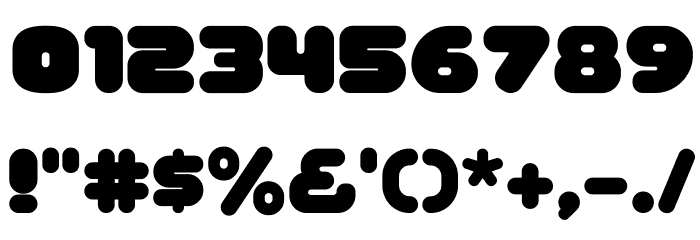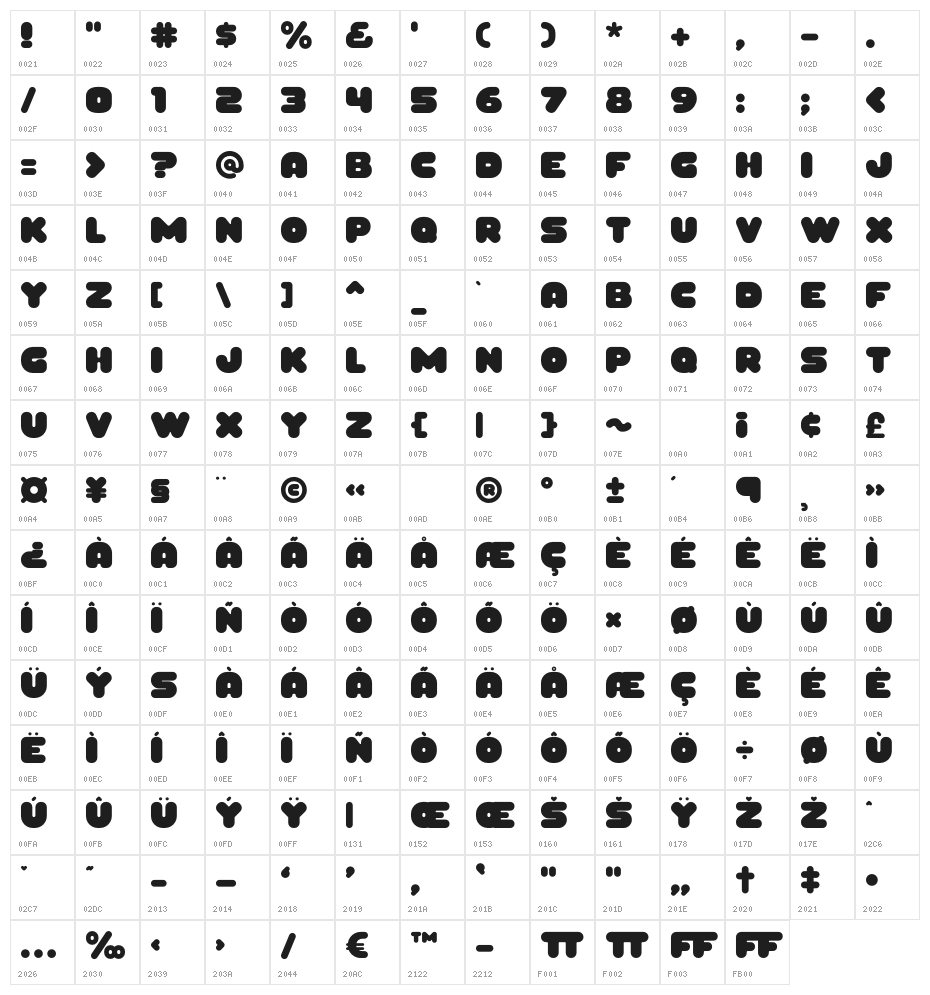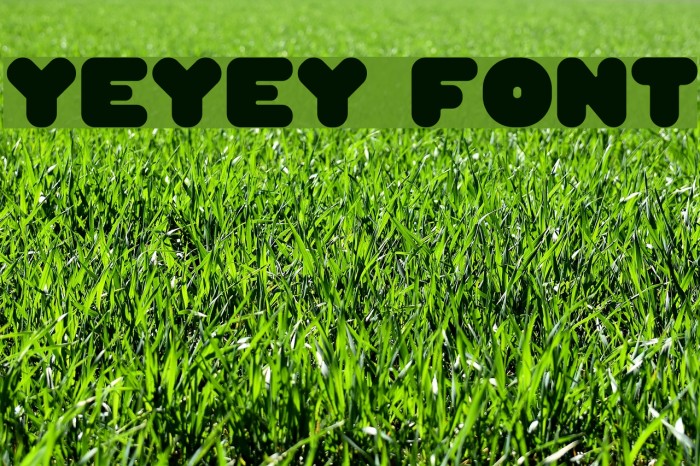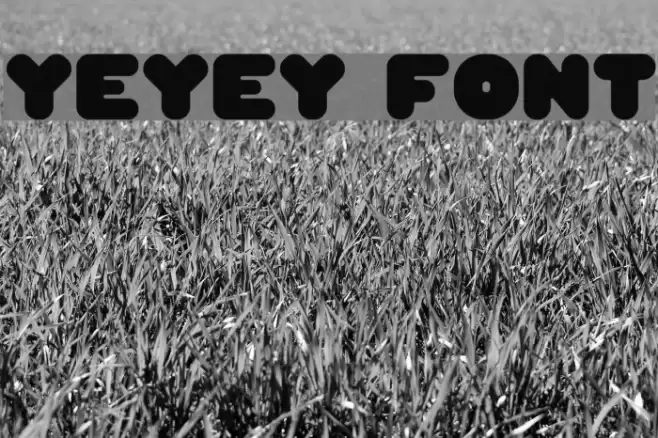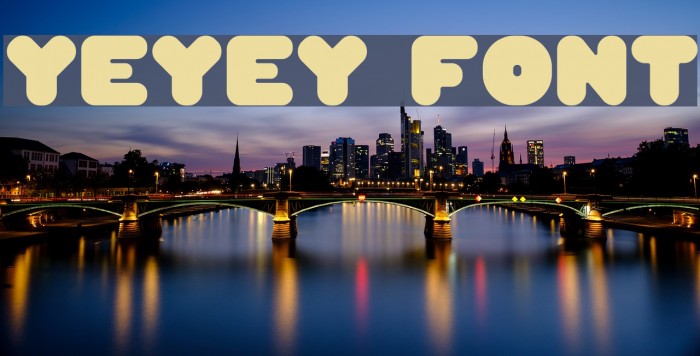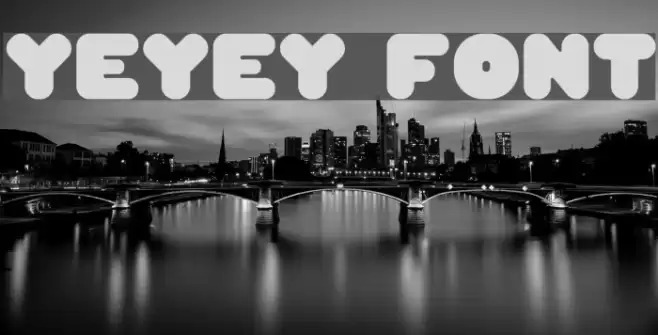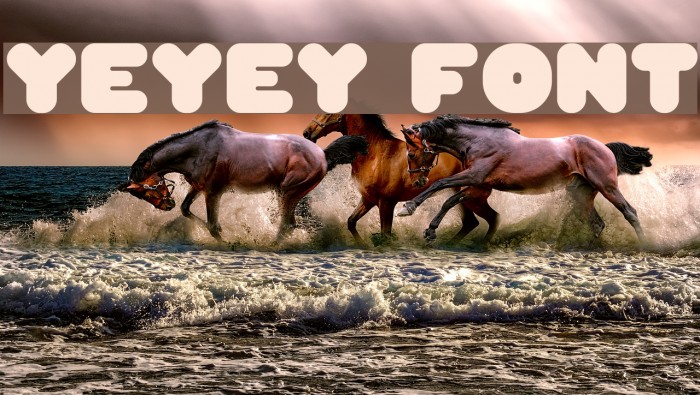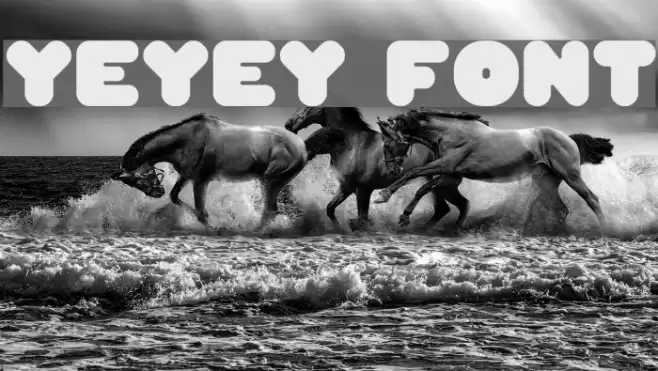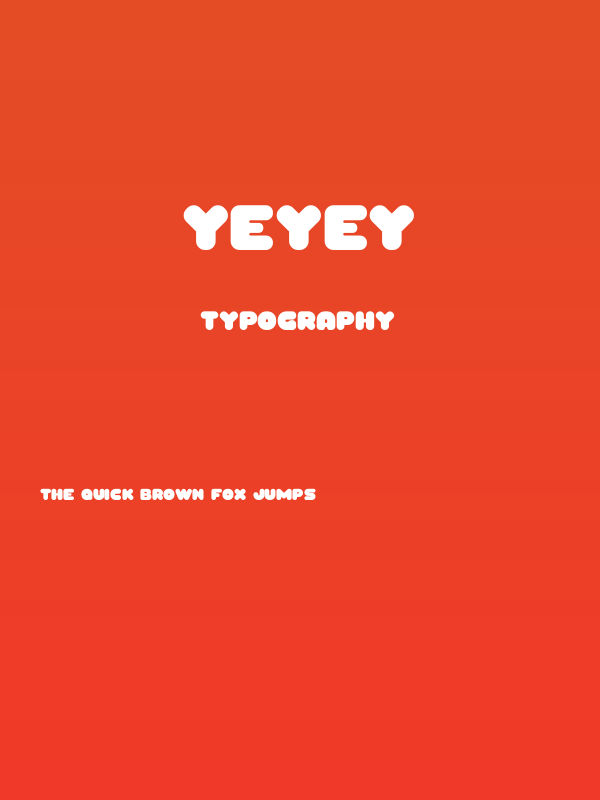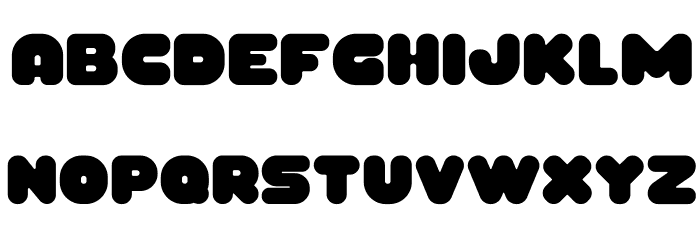
Yeyey Font
Yeyey Description
This font features bold, rounded characters with a playful and modern aesthetic. The letters are uniformly thick, giving a strong and impactful appearance. The rounded edges soften the overall look, making it approachable and friendly. The numbers and special characters maintain the same boldness and rounded style, ensuring consistency across all elements. This font is highly legible, even at smaller sizes, due to its clear and distinct shapes. Its unique style makes it stand out, perfect for projects that require a bold statement.
| Proposed Projects | Ideal for branding, posters, children's books, and any project needing a bold, friendly typeface. |